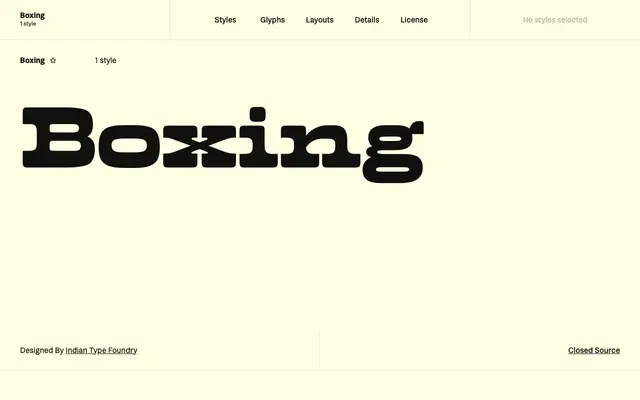
Boxing
A single-weight extended display face with reverse contrast, where horizontal strokes and serifs dramatically outweigh the verticals in the tradition of 19th-century western and European poster type.
Designed by Ruosi Huang and released via Fontshare in October 2021, Boxing draws on the reverse-contrast letterforms found on Wild West-era American posters and mid-19th-century European printing, as well as the psychedelic graphics of the 1960s and 70s. All letters are wide and extended, with the horizontal elements and serifs carrying an exaggerated weight that inverts conventional stroke logic. The single Regular style suits poster headlines, flyers, logo work and editorial display settings where a bold historical reference is needed.
Boxing uses heavy horizontal strokes that exceed the vertical strokes, a defining trait of reverse-contrast type. Its extended, wide letterforms and extreme serif weight place it squarely in the western or latin display tradition.